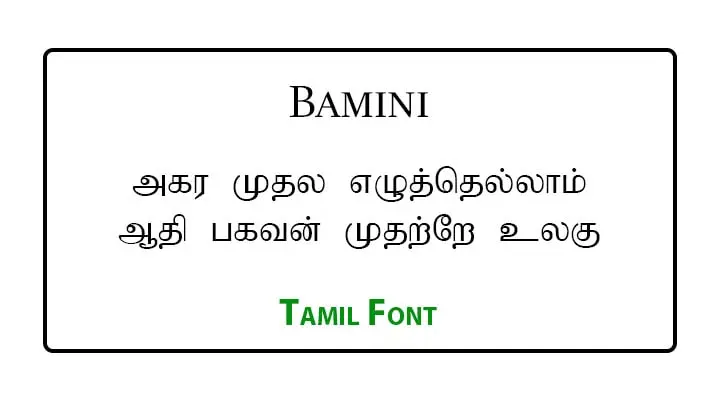
Bamini Tamil Font Free Download. Bamini is one of the Tamil Stylish Font. Specially used in publications. Here you can download Font and Keyboard Layout for Free. This font is widely used by Tamil Nadu and Sri Lankan Tamil Peoples.
Bamini Tamil Font Preview